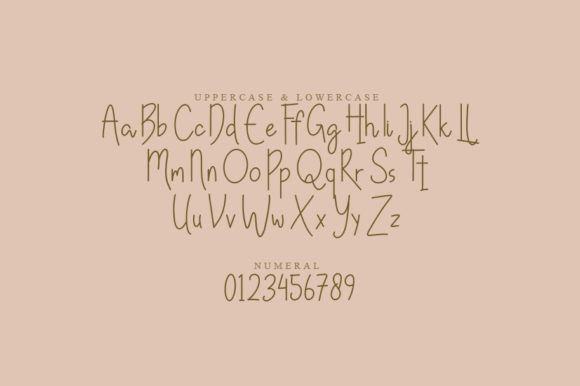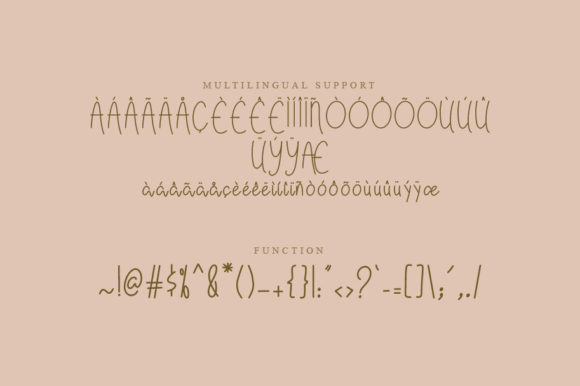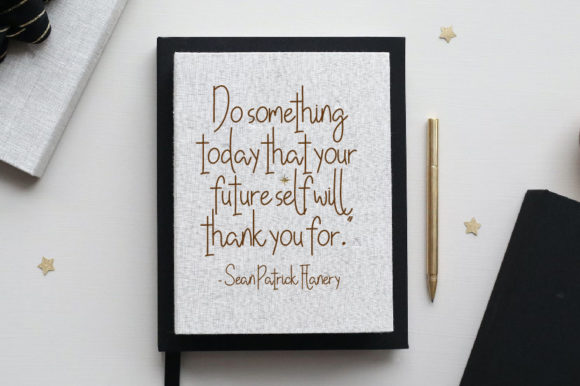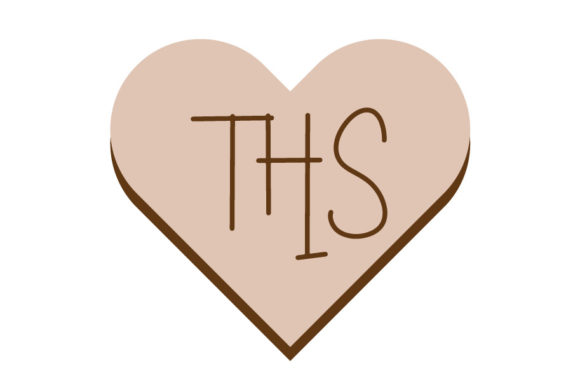
Ruglhe Script Font
About Ruglhe Script Font
Ruglhe Script is a slim and endless handwritten font. It is the best choice for creating eye catching logos, branding and quotes. Every letter has a unique and beautiful touch, which will make your design come alive!